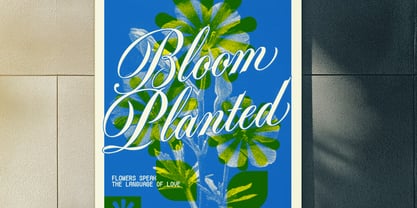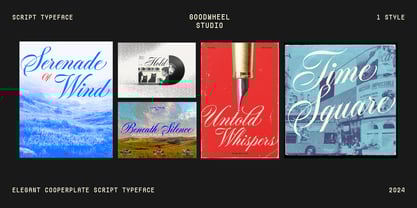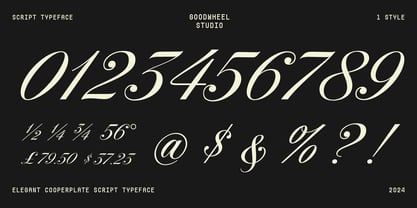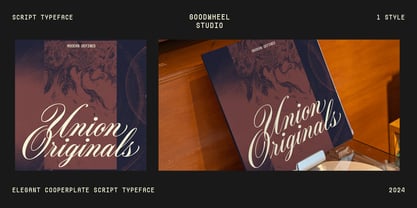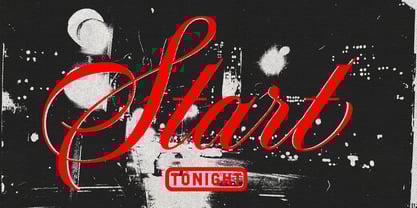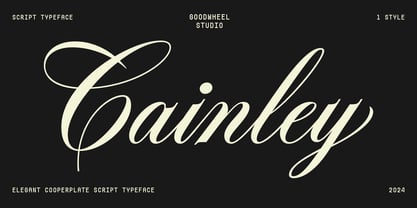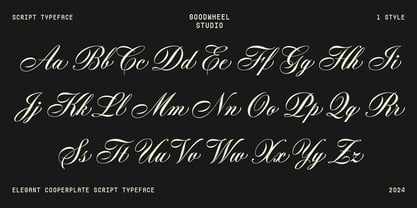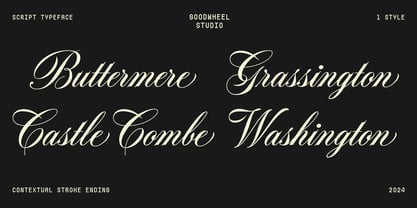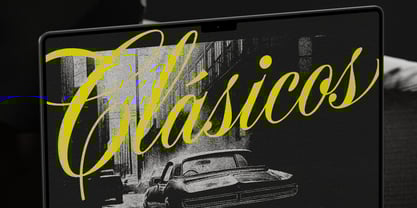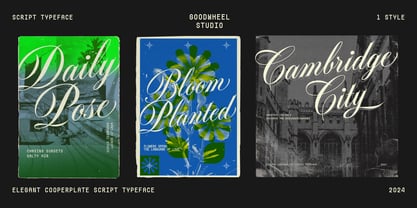
GW Cainley
by Goodwheel Studio
The GW Cainley Font Family was designed by Ilham Herry and published by Goodwheel Studio. GW Cainley contains 1 styles.
This typeface draws inspiration from the timeless beauty of Copperplate script calligraphy, featuring graceful swashes, elegantly refined stroke endings, and thoughtfully crafted contextual alternates for key characters like “n,” “m,” and “x.” Its sophisticated design captures a perfect balance between classic charm and modern versatility, making it ideal for a wide range of creative applications. Whether you’re designing an eye-catching logo, creating striking headlines, or developing a distinctive brand identity, this font brings an unmatched level of elegance and refinement to your work.
Designers: Ilham Herry
Publisher: Goodwheel Studio
Foundry: Goodwheel Studio
Design Owner: Goodwheel Studio